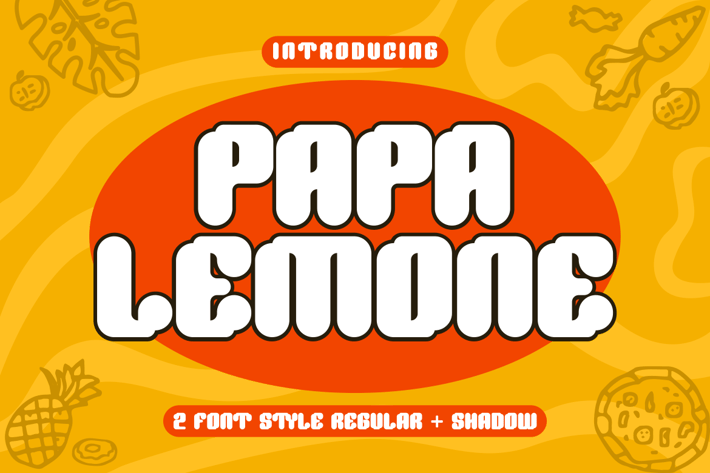
PAPA LEMONE - Food Font
Presenting PAPA LEMONE - Font is suitable for badge, labels, logo, branding, magazine, poster and etc. Our fonts have Uppercase & Lowercase, Numeral & Punctuation, Multilingual support and Opentype Features. For Amazing designs you can mix with other fonts as a complement.